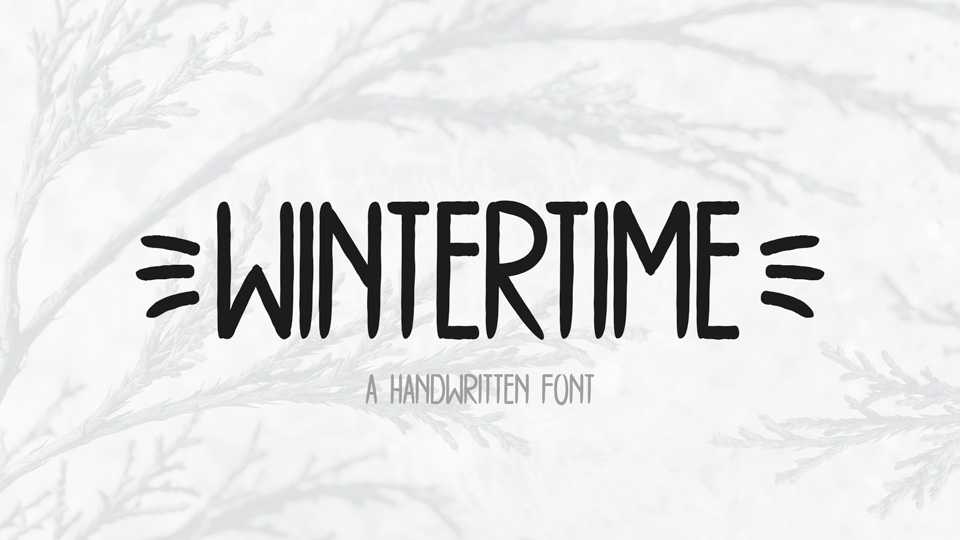
Download Wintertime font, a simple yet original handwritten typeface. Wintertime can be used for crafts, social media, blogs, home decor, SVG designs, t-shirts, invitations, cards and more.